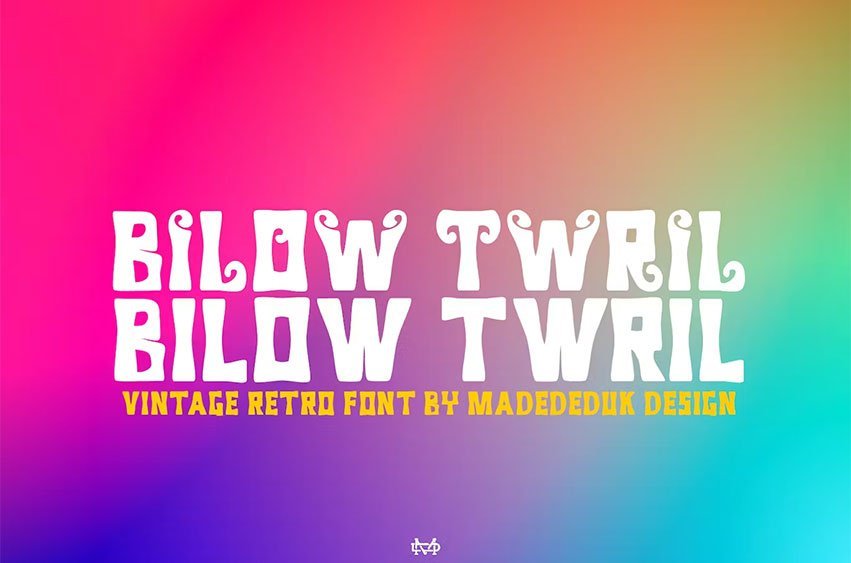
Billow Twril Font is a retro display font. Comes with uppercase curly style with much alternative and ligature. This font perfect for poster design, book covers, merchandise, fashion brands, advertising, magazines, album covers, and more.